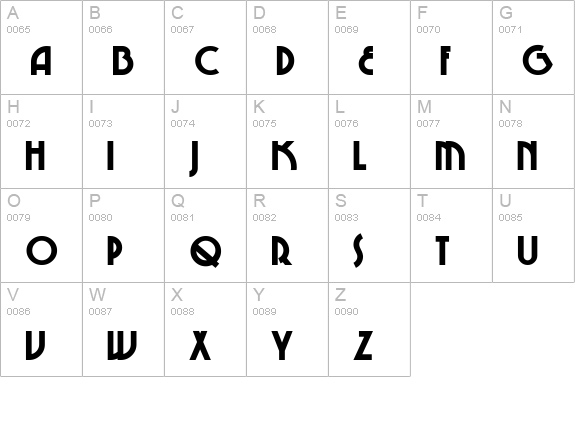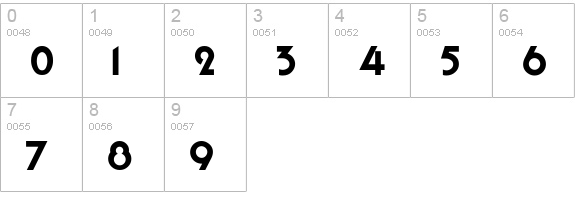
Chi-Town Font Details
Chi-Town font is a bold and stylish typeface that exudes urban flair and modern sophistication. With its clean lines and sharp edges, this font is perfect for making a statement in any design project. Its versatility allows it to be used for a wide range of applications, from posters and logos to social media graphics and branding materials. What sets Chi-Town font apart is not just its striking appearance, but also its accessibility. This high-quality font is available for free download at FontsMarket.com, making it a valuable asset for designers and creatives looking to elevate their work without breaking the bank. Whether you're working on a personal project or a client's campaign, Chi-Town font is sure to make a lasting impression.